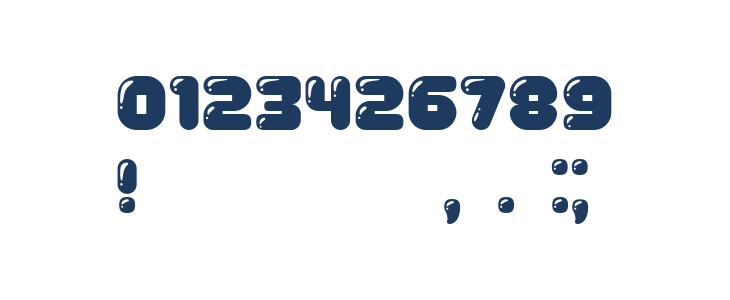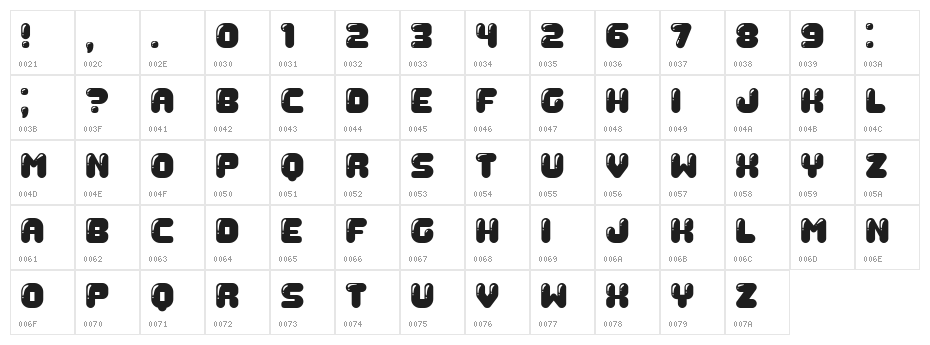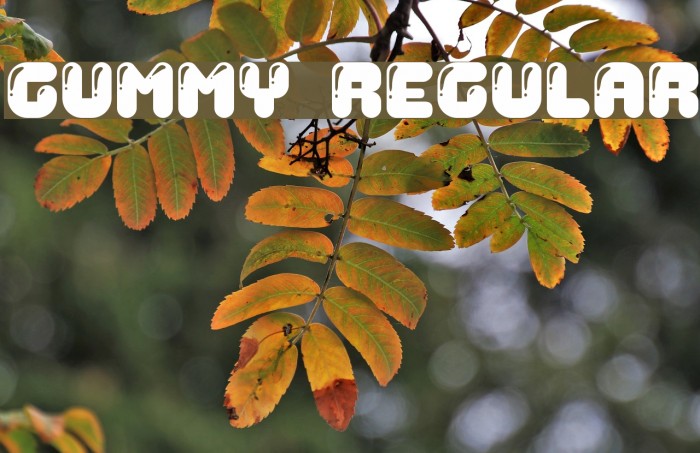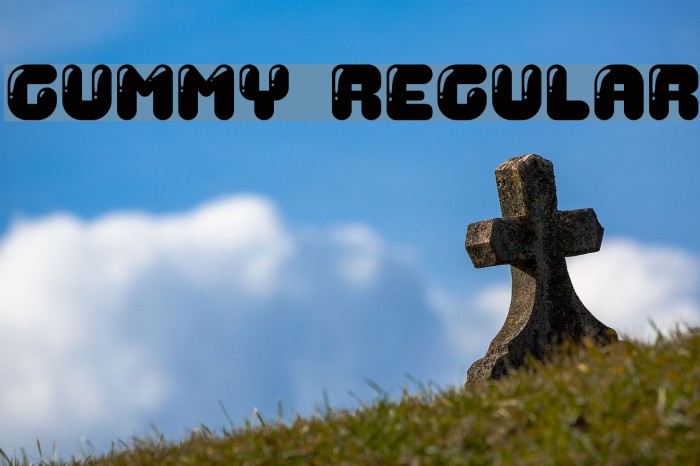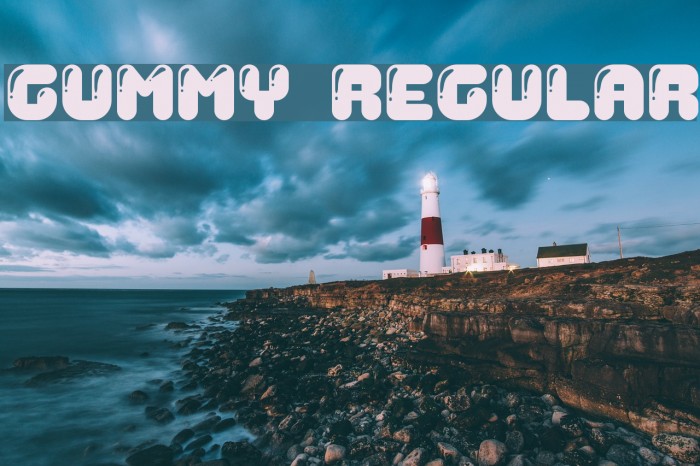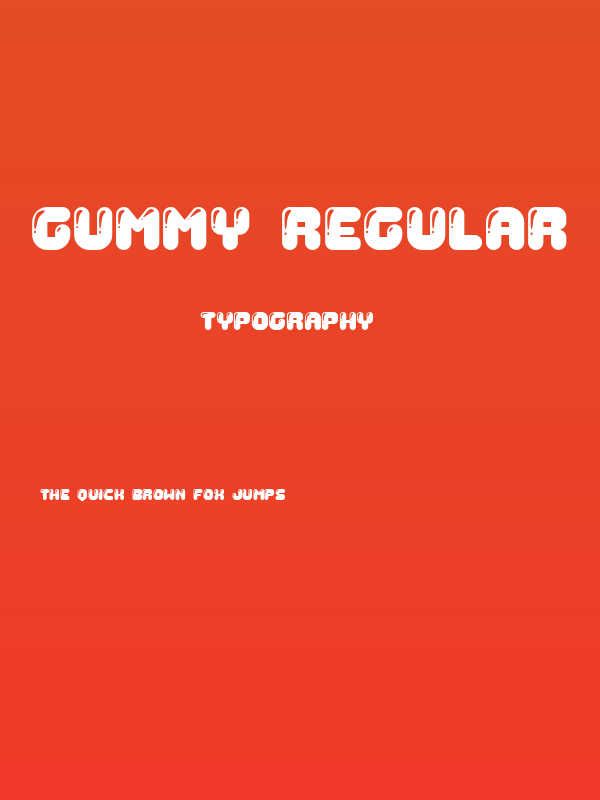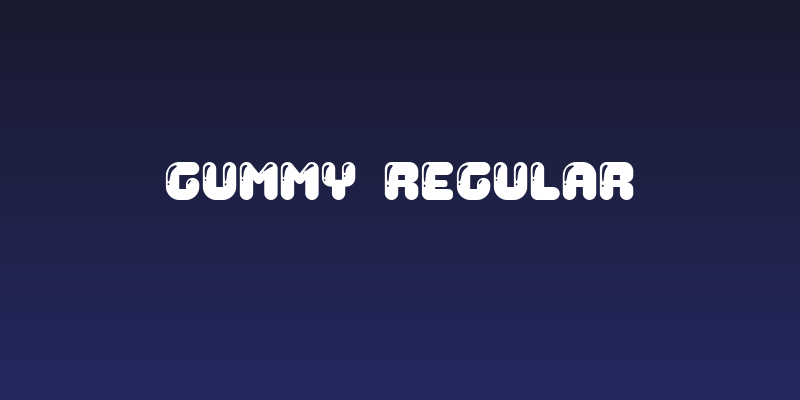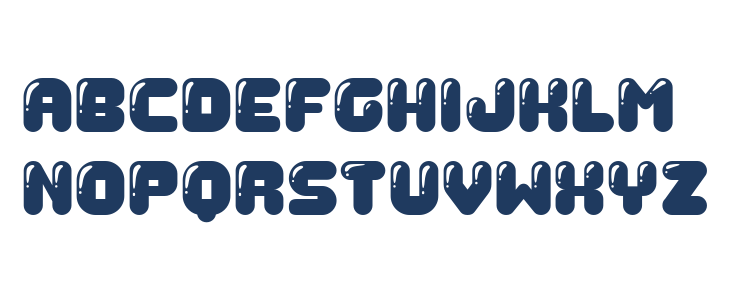
Gummy Regular Font
Gummy Regular Description
This playful and bold font features rounded, bubble-like characters that give it a fun and whimsical appearance. The letters are thick and have a glossy, shiny effect, reminiscent of gummy candies. The font maintains a consistent weight throughout, with smooth curves and a slightly condensed form. It is highly legible and stands out due to its unique, eye-catching style. The characters have a uniform width, and the spacing between them is normal, allowing for easy readability. This font is perfect for projects that require a lively and energetic vibe.
| Proposed Projects | Ideal for children's books, candy packaging, playful branding, and party invitations. |